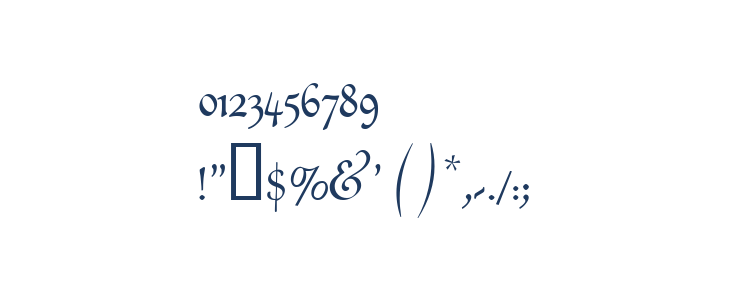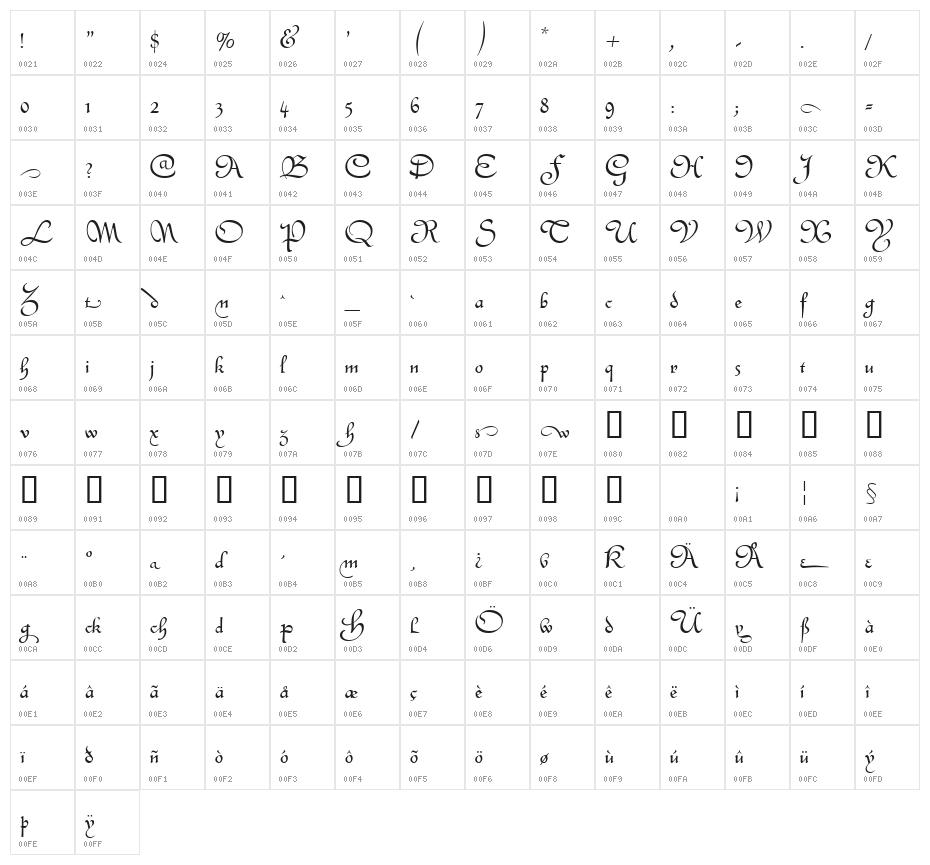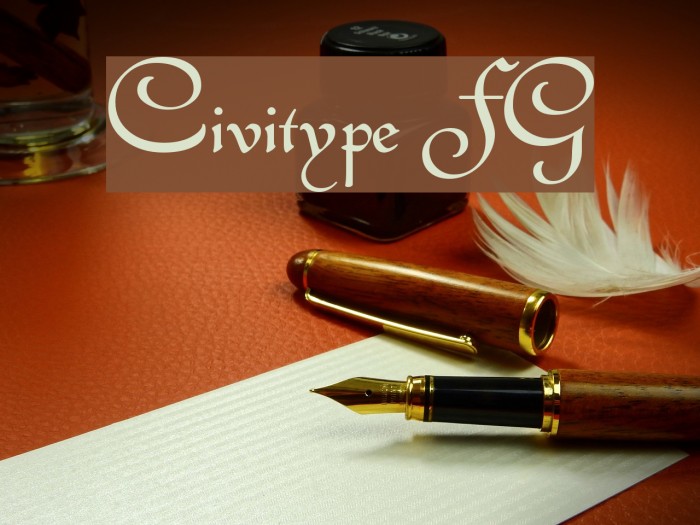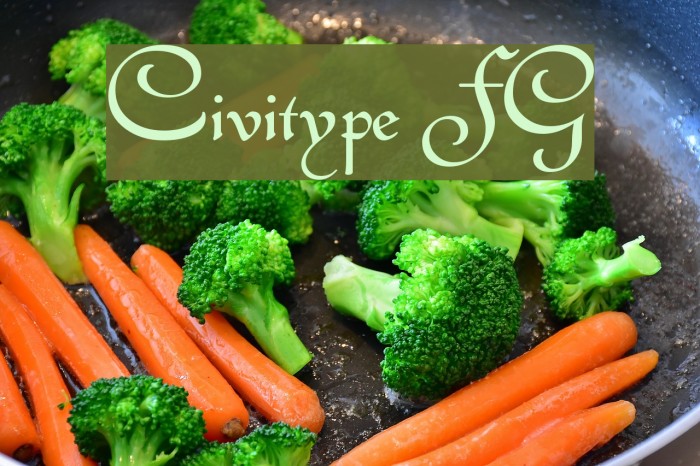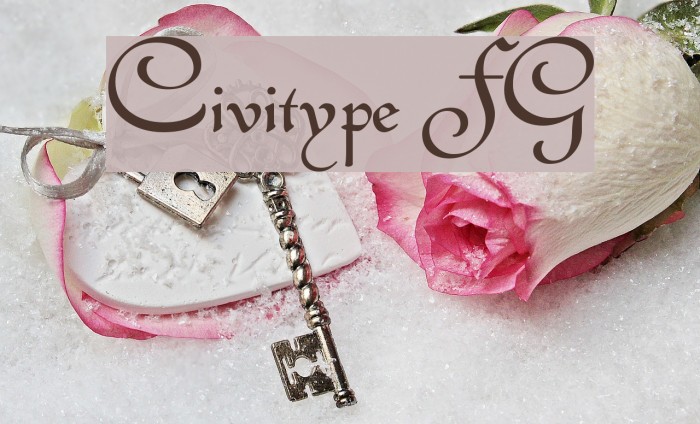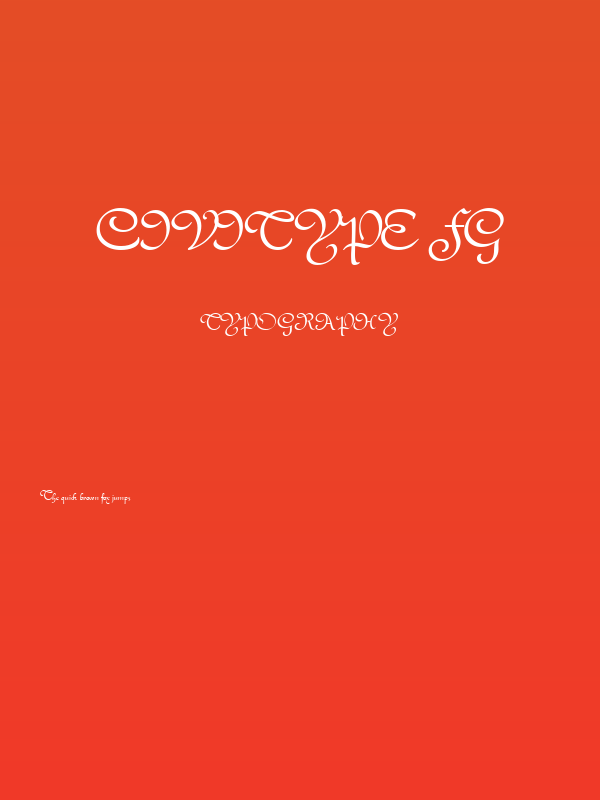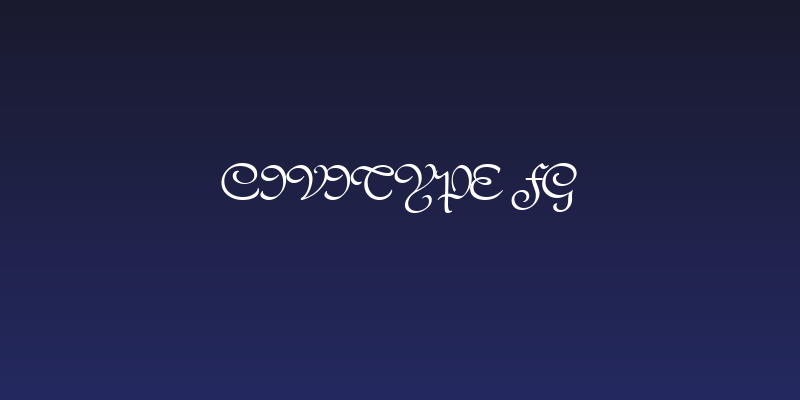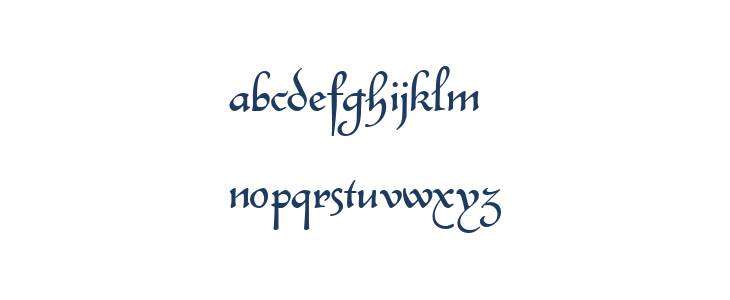
Civitype FG Font
Civitype FG Description
This font exudes elegance and sophistication with its intricate and flowing script style. The uppercase letters are characterized by elaborate swirls and flourishes, giving them a decorative and ornate appearance. The lowercase letters maintain a more restrained yet still stylish design, ensuring readability while preserving the font's overall aesthetic. The numerals are well-balanced, complementing the letterforms with their graceful curves. Special characters are thoughtfully designed to match the font's elegant theme, making it suitable for various artistic and formal applications.
| Use Case | Logos, Invitations, Decorative text |
| Proposed Projects | Ideal for wedding invitations, luxury branding, certificates, and artistic projects requiring a touch of elegance. |